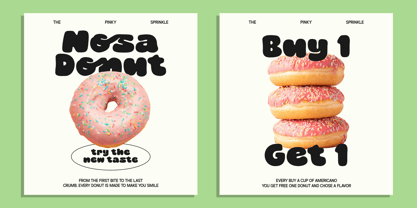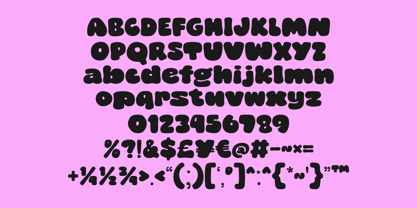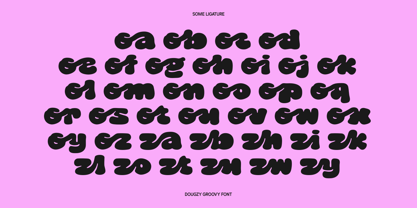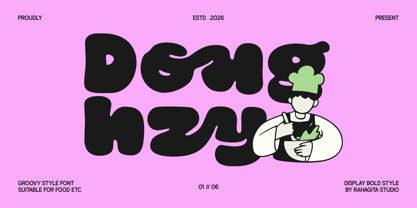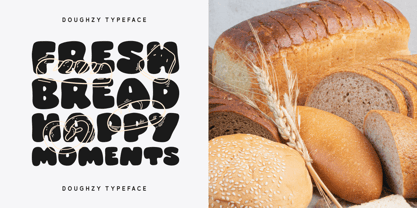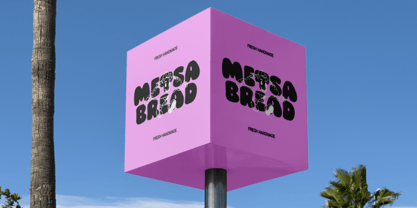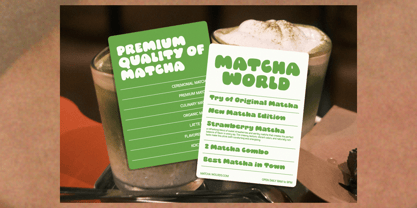
Doughzy
by RahagitaType
The Doughzy Font Family was designed by Setiadi Rahagita and published by RahagitaType. Doughzy contains 1 styles. More about this family
Doughzy is a bold, bubbly groovy display typeface designed for brands that want to stand out with a playful yet powerful visual identity. Inspired by the soft, rounded shapes of dough and retro 70s bubble lettering, Doughzy delivers an irresistibly fun personality that works perfectly for food brands, bakeries, donut shops, cafés, matcha bars, beverage labels, street food packaging, and any design that needs serious impact with a lighthearted soul.
Whether you’re designing a menu card, outdoor signage, promotional poster, social media banner, or product packaging — Doughzy brings instant energy and character to every layout.